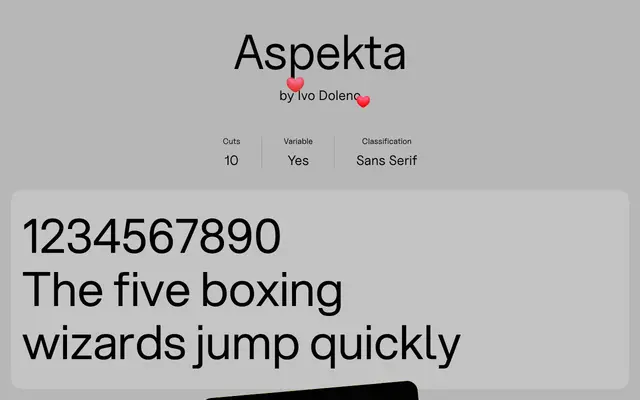
Aspekta
A free, variable sans-serif by Ivo Dolenc available in ten cuts under the SIL Open Font License for commercial and personal use.
A variable sans-serif with ten cuts, released under the SIL Open Font License, making it freely available for both personal and commercial projects. Designed by Ivo Dolenc, the family offers a broad weight range suited to UI, editorial and branding work where flexibility and no licensing cost are priorities. The variable font format allows fine-grained weight control across its full range.
Listed as Sans Serif on the page; the name and general style suggest a contemporary grotesque or geometric sans-serif design.